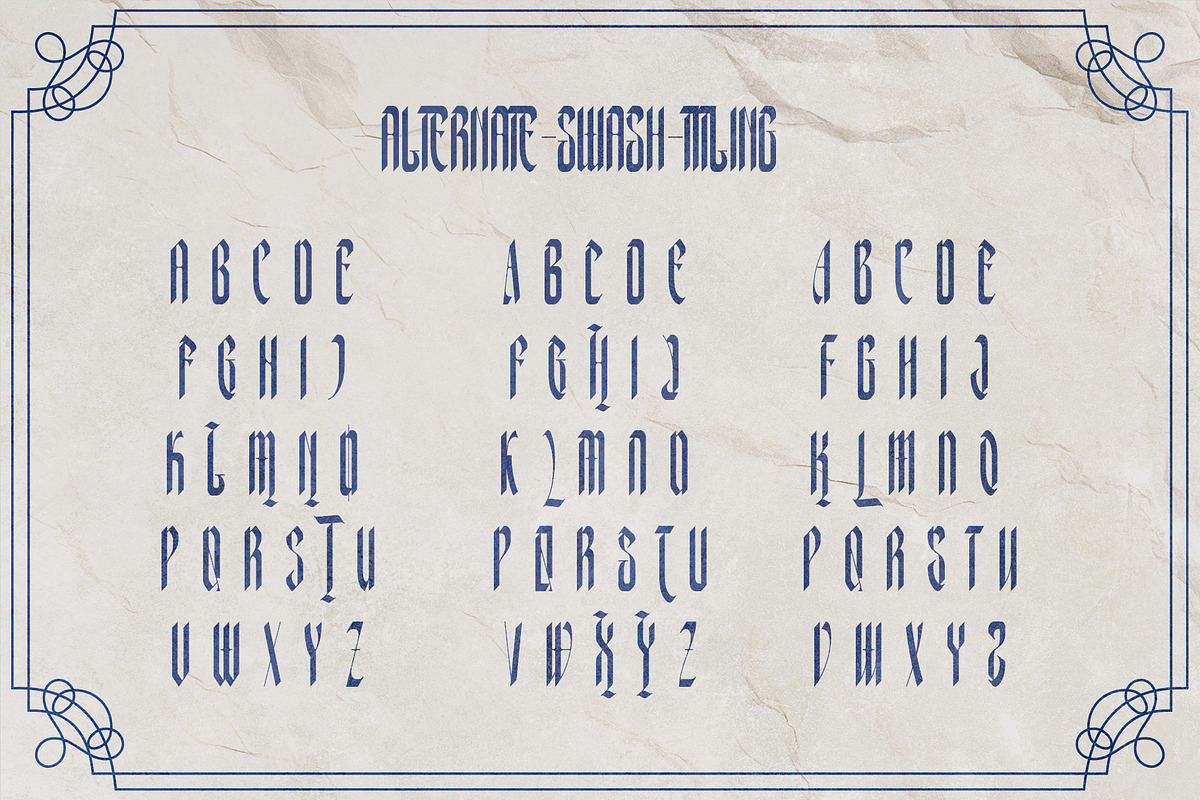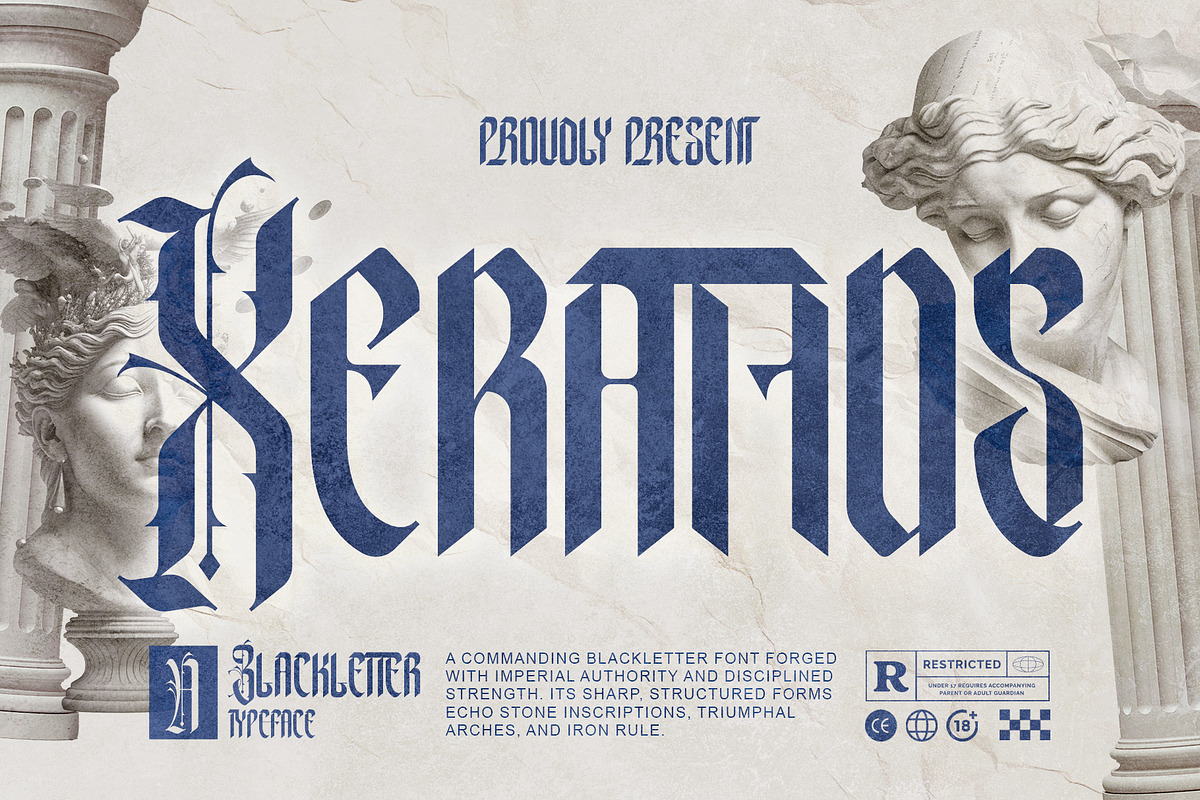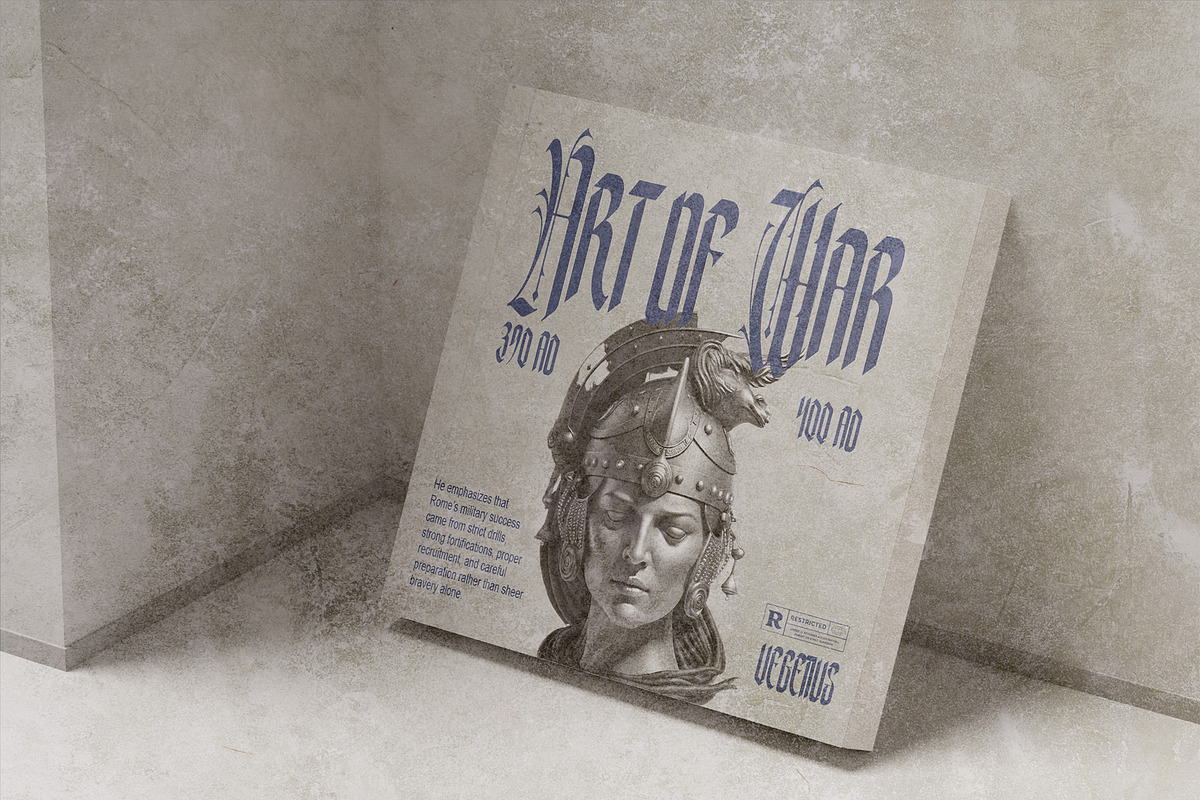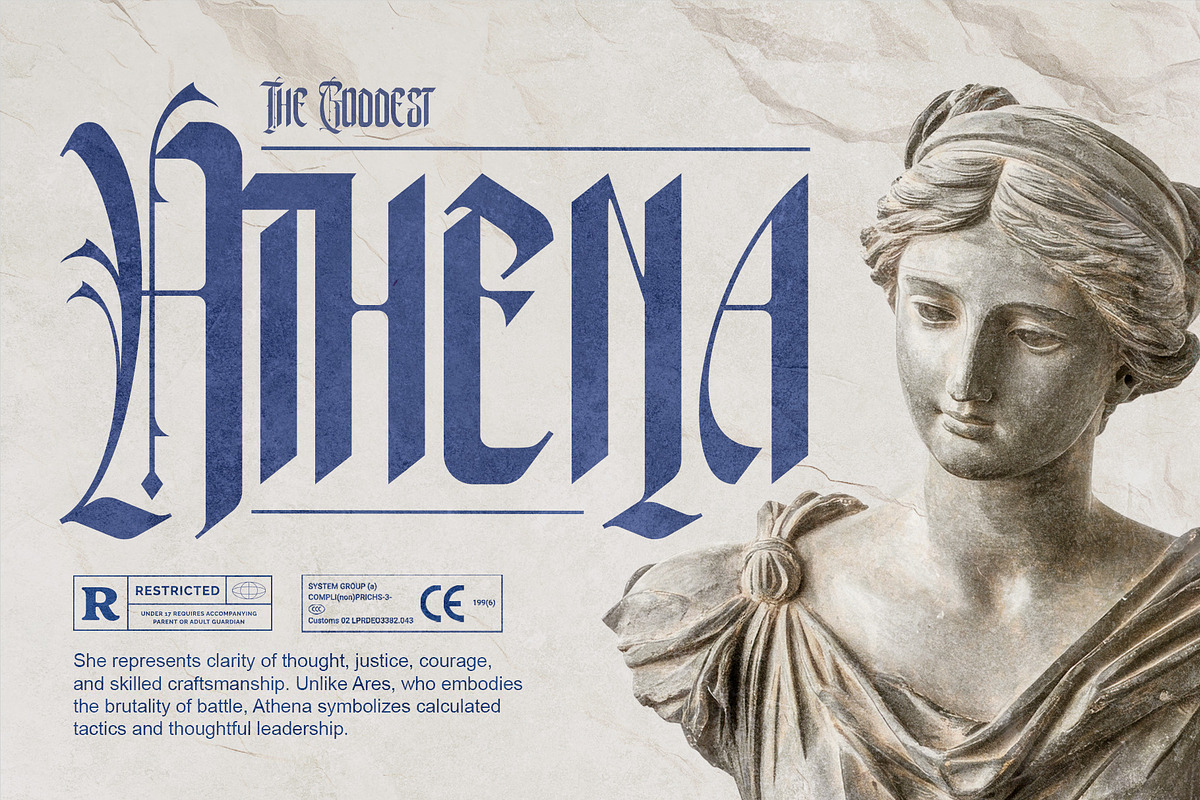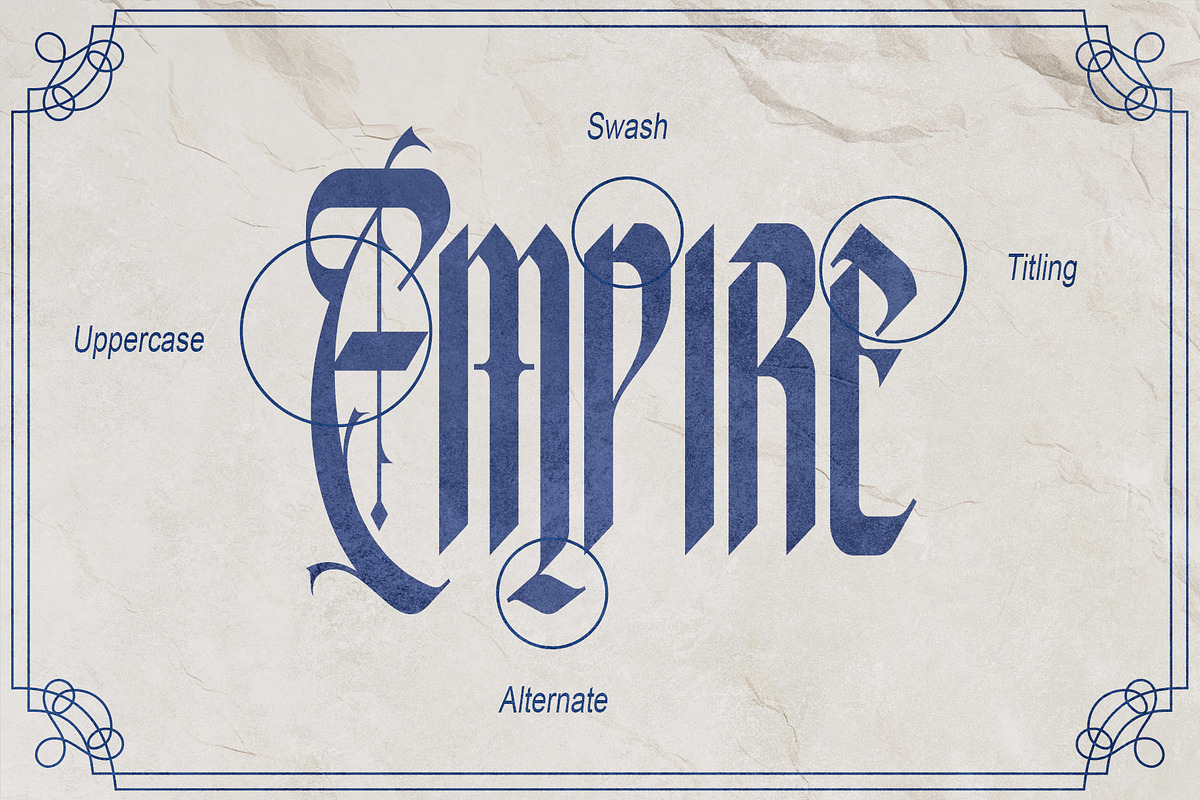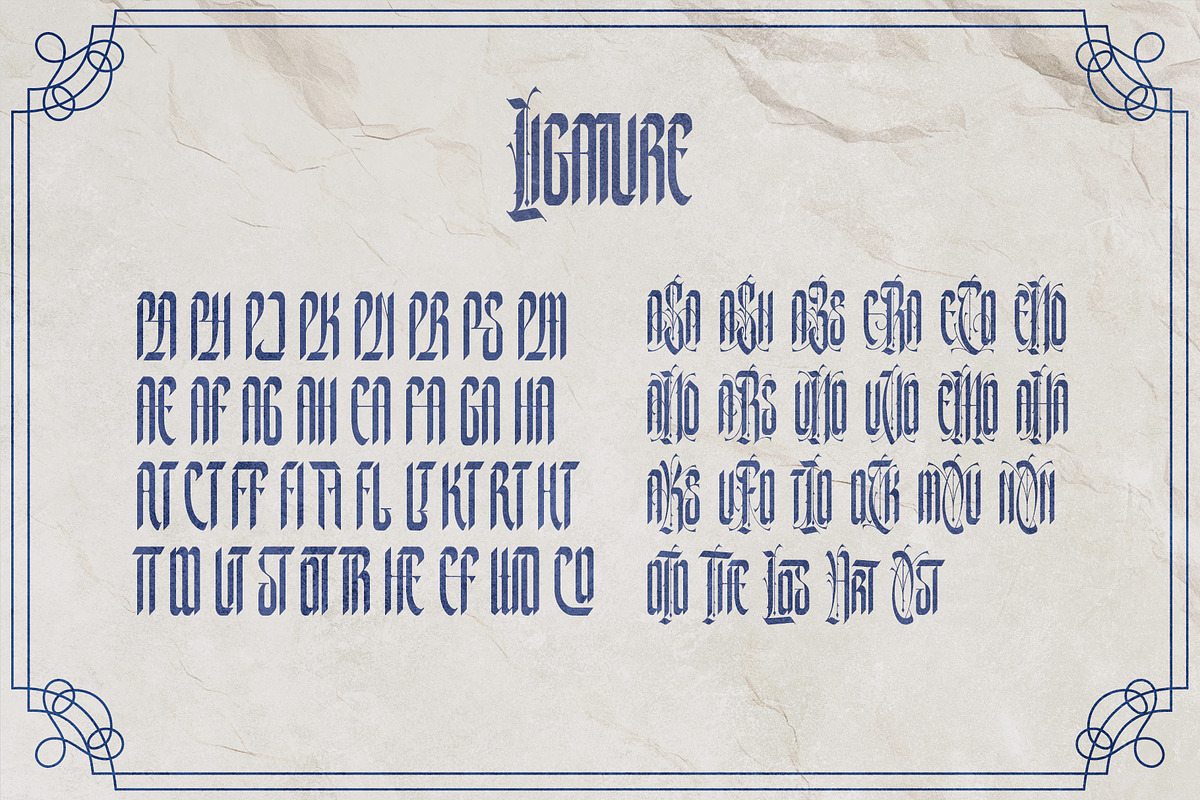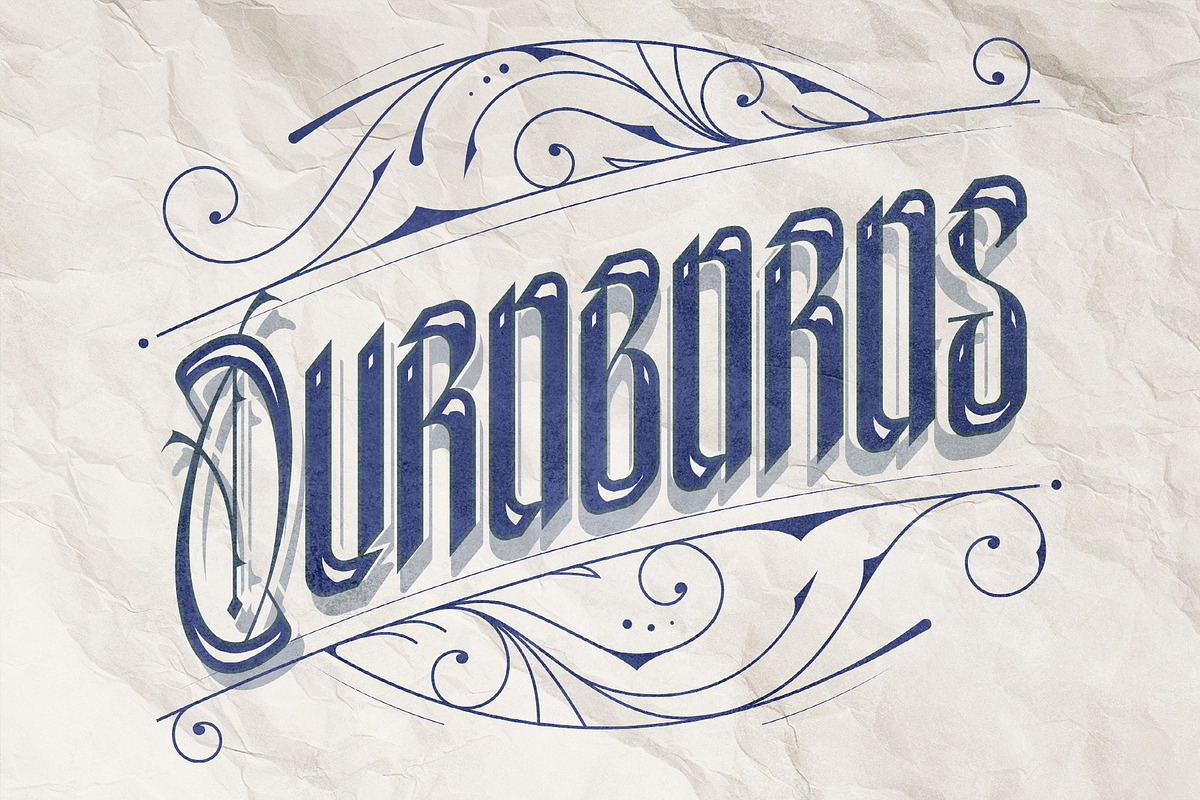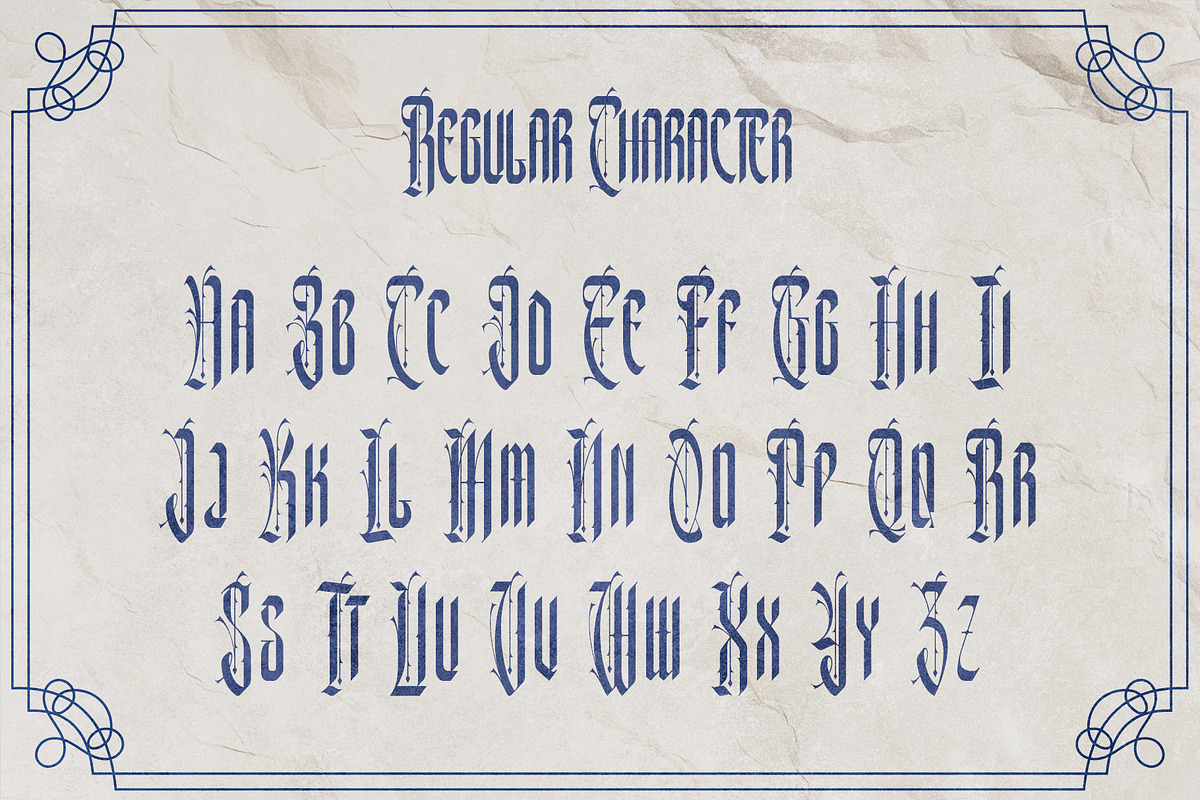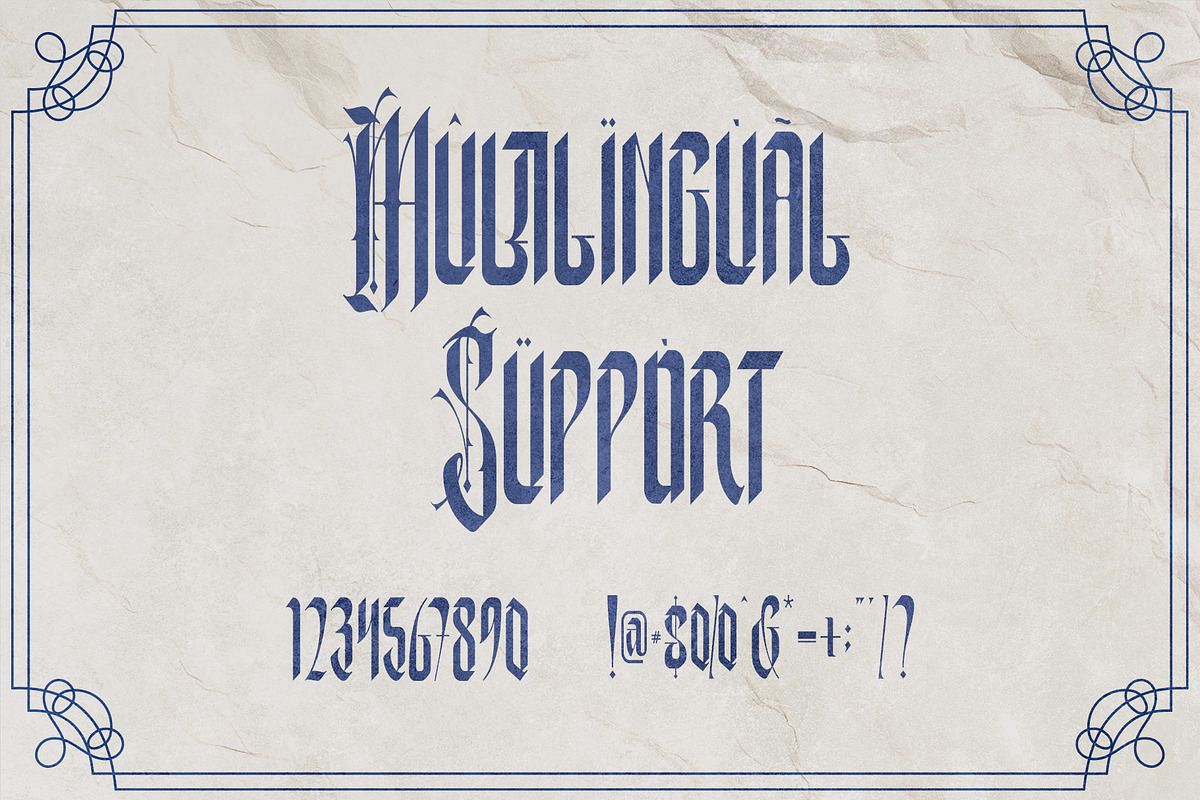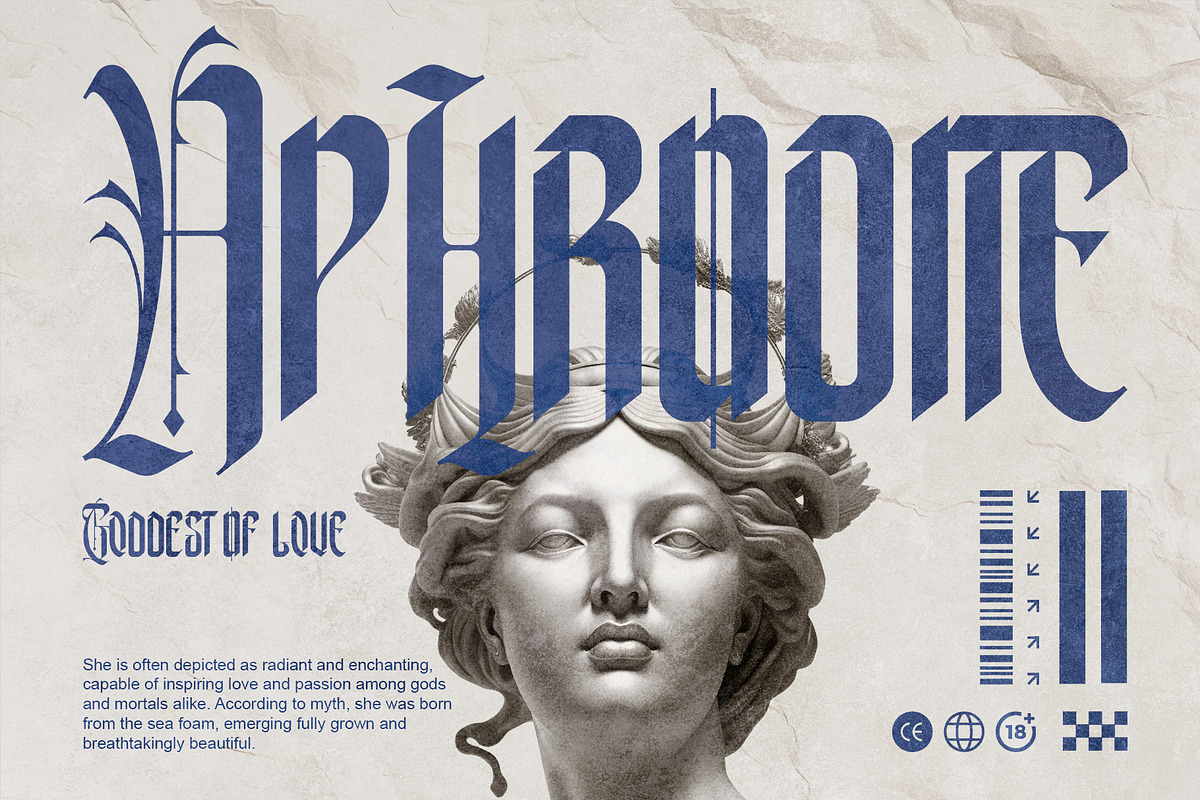
Xerathos Gothic Blackletter Medieval
Not just a font. A monument in letterform. Xerathos emerges from the grandeur of imperial blackletter tradition—disciplined, commanding, and architecturally precise. Inspired by stone inscriptions, triumphal arches, and the solemn authority of classical empires, Xerathos channels structured power into every vertical stroke and sharpened serif. It does not whisper elegance—it declares dominance. Forged with bold geometry and disciplined rhythm, Xerathos balances gothic heritage with modern refinement. Its sharp angles, balanced proportions, and carved-like terminals create a presence that feels etched into marble rather than laid upon a page. Each glyph carries the weight of ceremony and conquest, transforming simple words into emblems of authority and prestige. Perfect for luxury branding, editorial mastheads, high-end packaging, cinematic titles, album covers, tattoo lettering, and commanding logos, Xerathos delivers a bold blackletter aesthetic without sacrificing clarity or sophistication. With an extensive glyph set and multilingual support, it provides both artistic depth and professional versatility. Xerathos is not ornamental excess—it is structured power. Where discipline meets dominance. Where typography becomes legacy.
- Support multilingual; ä ö ü Ä Ö Ü ß ¿ ¡
- Numerals & Punctuation *uppercase letters
- Alternate, swash, titling & Ligature *Works both on Mac & PC